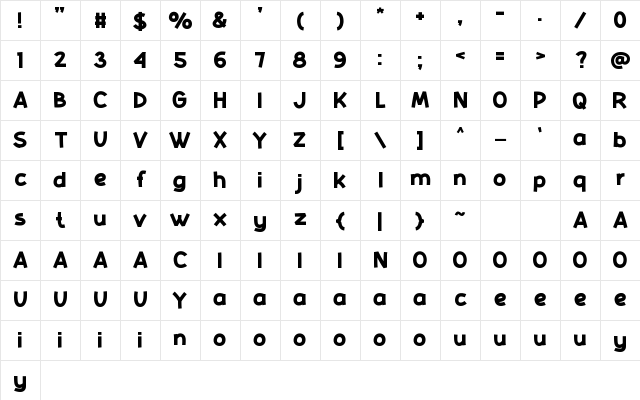
WACKOZ Regular Free Font
WACKOZ Regular
Foundry: TOKOPRESS
Designer: TOKOPRESS TEAM
Design Context for WACKOZ
WACKOZ is a composed and adaptable typeface that performs quietly and consistently across a wide range of design contexts.